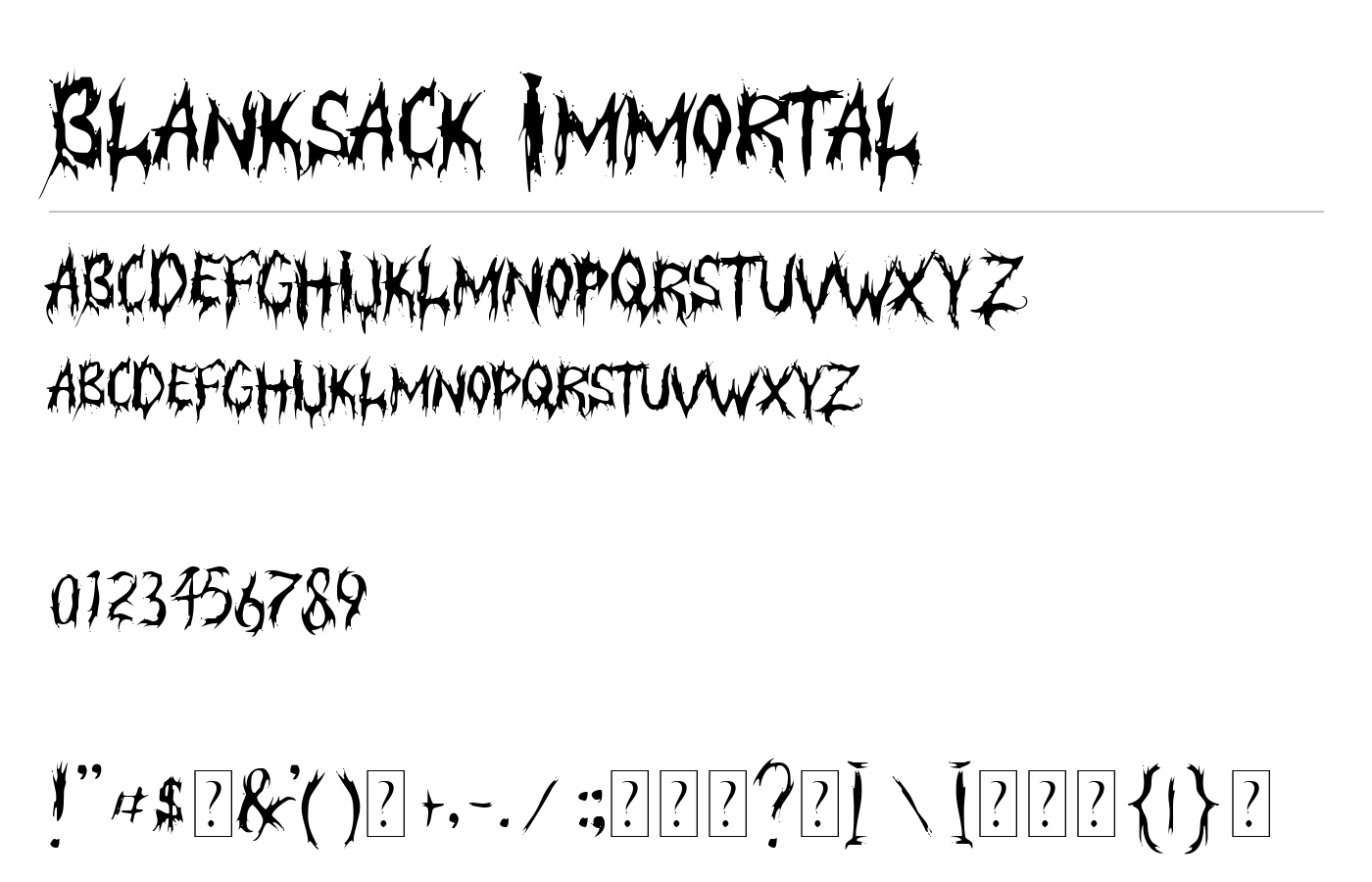
Blanksack Immortal is a highly decorative, horror-themed display font featuring sharp, jagged edges that create a dramatic and eerie effect. With its bold, uneven strokes and distressed texture, this all-caps font is perfect for designs seeking a spooky, intense, or rebellious vibe, making it ideal for Halloween graphics, horror posters, or edgy branding. Its unique style commands attention and works best in large sizes where its intricate details can shine.
Blanksack Immortal Font
About Blanksack Immortal Font